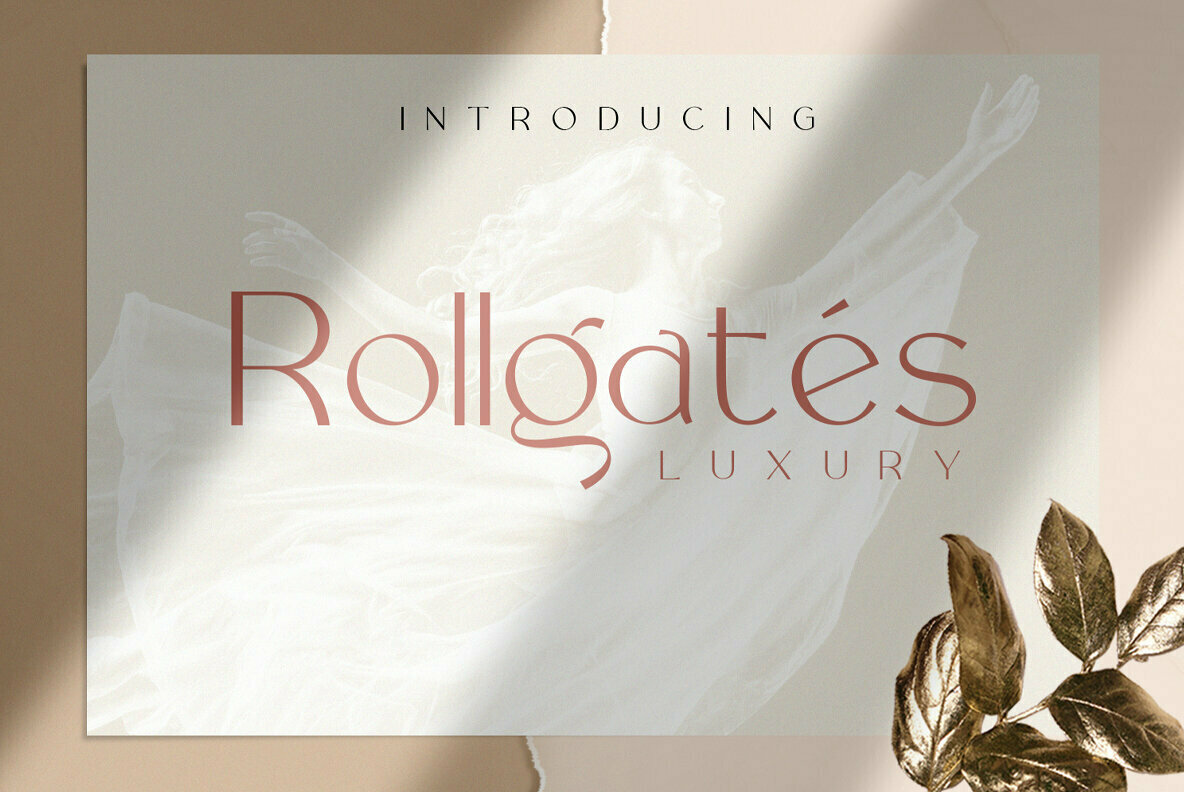
Rollgates Luxury Font
Rollgates Luxury Font is perfect for exclusive gated community branding, luxury real estate marketing, high-end security service communications, prestigious private club materials, upscale residential development campaigns, elite property management signage, sophisticated access control systems, and distinguished luxury lifestyle brands.
What makes Rollgates Luxury Font exciting is its exclusively sophisticated character that embodies the prestige and security of gated luxury living through elegantly authoritative letterforms that seem designed for the most exclusive addresses and premium properties. The font features refined proportions with luxury-inspired details that evoke the exclusive access and sophisticated security found in the world's most prestigious residential communities. Its luxurious aesthetic and exclusive appeal make it perfect for brands that want to communicate premium security, exclusive access, and the sophisticated lifestyle that comes with living behind gates that open only for those who belong while creating memorable experiences that celebrate the ultimate in residential luxury and privacy.
Rollgates Luxury Font family includes various prestigious weights such as Light, Regular, Medium, and Bold variations, often featuring luxury stylistic alternates and exclusive decorative elements. The family may include security symbols, luxury ornaments, and prestigious ligatures that enhance the font's exclusive aesthetic, providing designers with comprehensive options for creating sophisticated typographic compositions that honor luxury living and exclusive access.